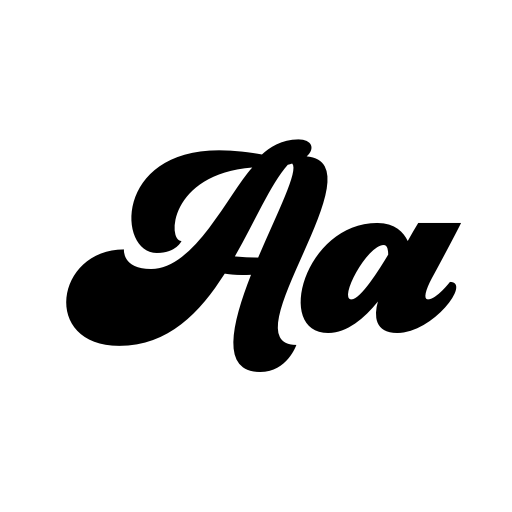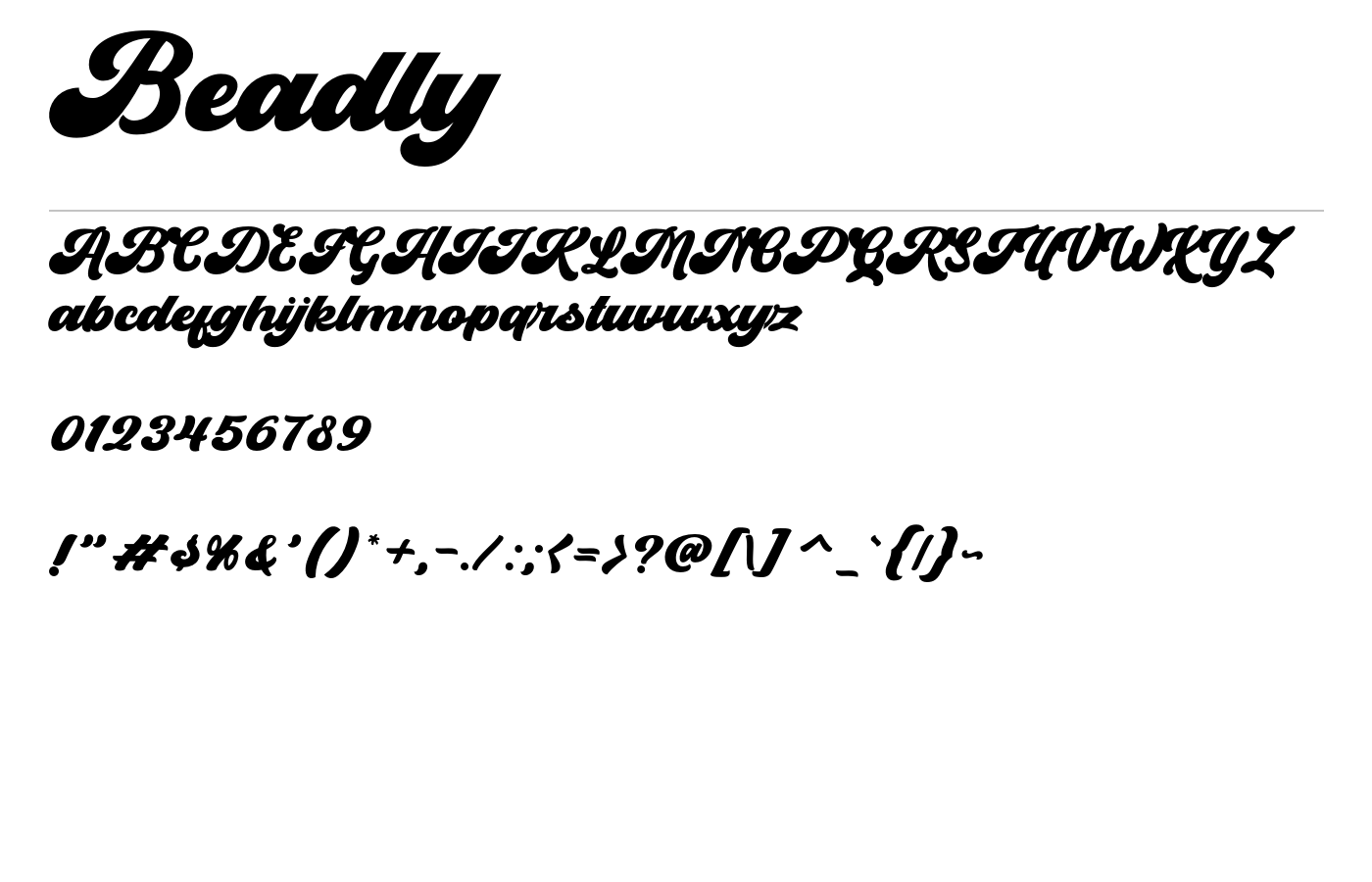
Beadly is a bold, cursive script font with smooth, rounded strokes that create a playful and friendly feel. Its thick weight and connected letterforms make it ideal for eye-catching headlines, logos, and branding that need a touch of retro charm and personality. This font works best in creative and informal contexts, where its lively and approachable style can truly stand out.
Beadly Font
About Beadly Font
| Font family | Beadly Font |
| Designer | Dida Ahluddin |